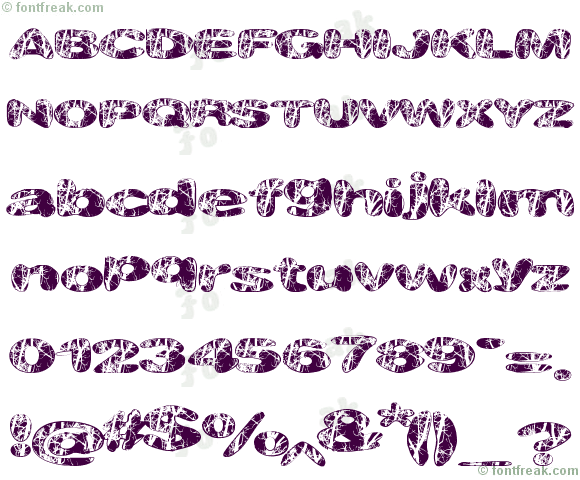
MajorVeins
About MajorVeins
MajorVeins, crafted by XEROGRAPHER FONTS in 2012, is a distinctive display typeface that captures attention with its unique and bold visual style. This font showcases a playful, organic design characterized by its irregular stroke weight and decorative elements, giving it a hand-crafted appearance. The contrasting textures within the letters evoke a sense of depth and visual interest, making it an ideal choice for projects that require a touch of creativity and personality.
The MajorVeins font is particularly well-suited for a variety of creative applications. Its eye-catching style makes it perfect for wedding invitations, where a touch of whimsy can enhance the overall aesthetic. It also works wonderfully for movie posters, helping to convey a sense of drama and intrigue. Restaurant menus can benefit from this font's distinctive look, drawing diners' attention and setting the tone for a memorable dining experience. Additionally, it can be effectively used in branding materials for small businesses seeking to stand out in a competitive market. Content creators looking to add a unique flair to their projects will find MajorVeins to be an excellent option.